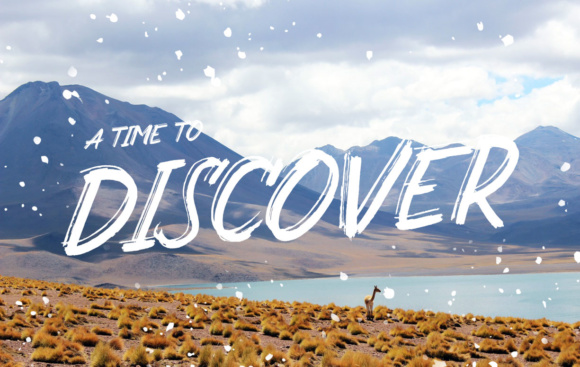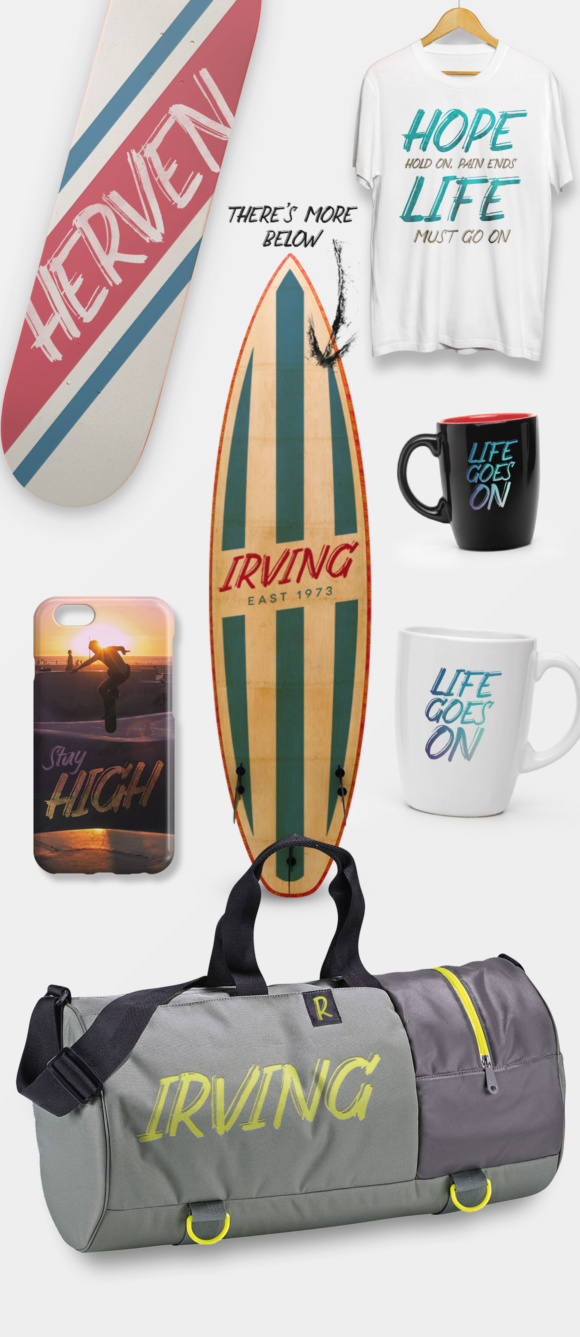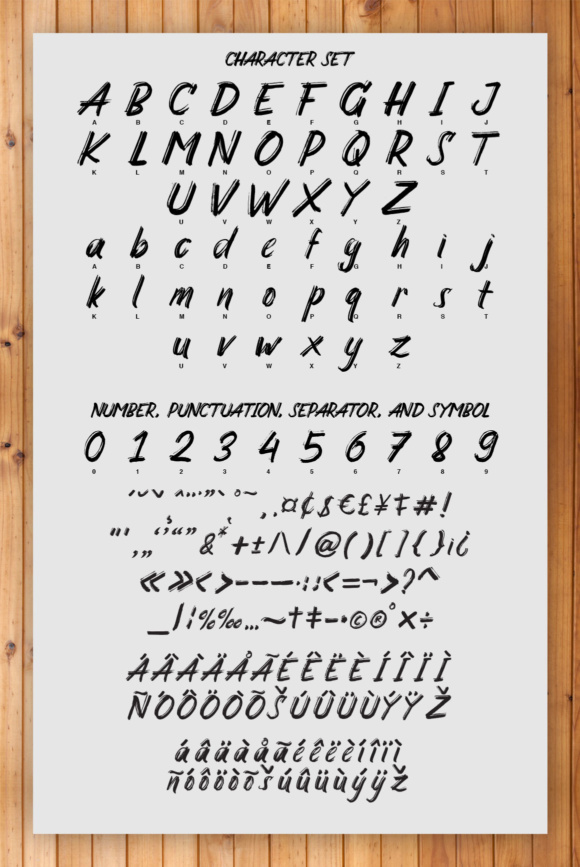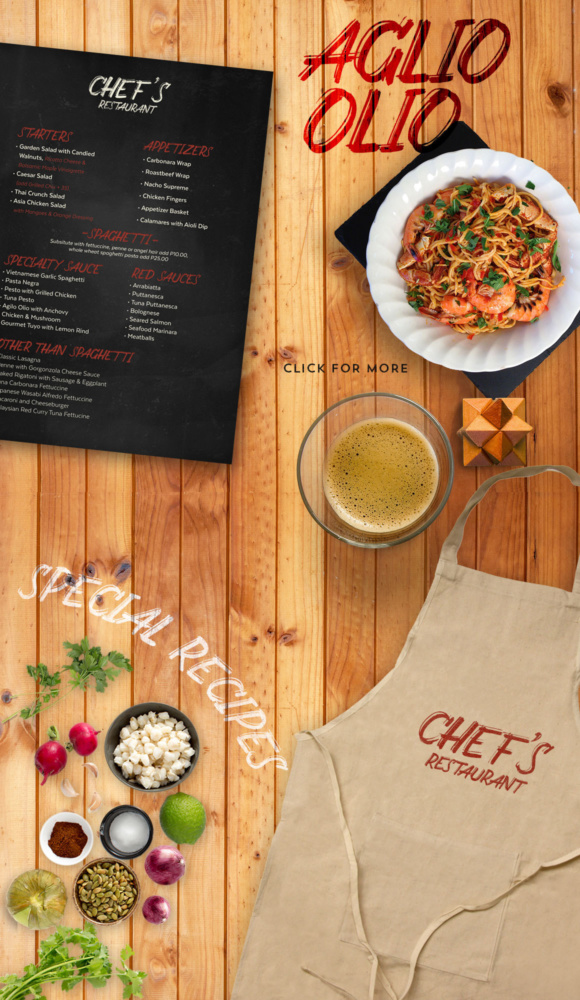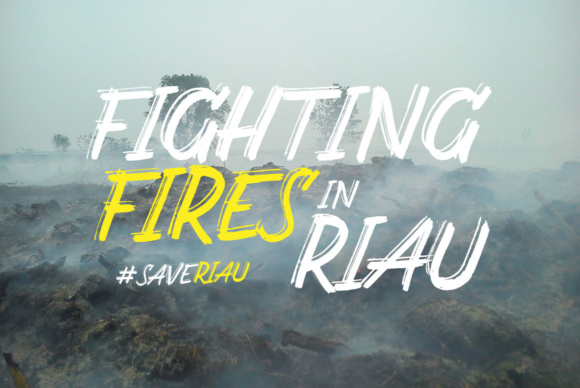
Discover the Unique Charm of Carbonera Font: A Story of Creativity and Sustainability
In the world of typography, fonts are often seen as mere tools for communication, but some stand out for their unique story, design, and the creative process behind them. Carbonera Font is one such typographic gem that not only catches the eye with its gritty, textured appearance but also tells a fascinating story of innovation and sustainability. This beautiful display font, crafted from the most unlikely of sources—cigarette filters—embodies a blend of grit and elegance that can add a distinctive touch to any design project.
The Origin Story of Carbonera Font
The story of Carbonera Font begins with a creative experiment. The designer, intrigued by the potential of everyday objects to be transformed into artistic elements, began using cigarette filters as the base material to craft unique strokes and shapes. This unconventional approach not only speaks to the ingenuity of the designer but also highlights a lesser-known aspect of sustainability in design. By repurposing discarded materials, Carbonera Font becomes a symbol of creative reuse and environmental consciousness.
Characteristics of Carbonera Font
Carbonera Font boasts a gritty look with a textured, authentic appeal that sets it apart from more traditional fonts. Its unique strokes, derived from the physical manipulation of cigarette filters, give the font a natural, almost organic feel. This texture can add depth and character to any project, making it particularly appealing for designers looking to infuse their work with a sense of realism and tactility.
- Unique Texture: The font’s texture, inspired by cigarette filters, provides a distinctive look that can enhance the visual appeal of any design.
- Gritty Appearance: Carbonera’s gritty aesthetic makes it perfect for projects that require a bold, statement-making font.
- Sustainable Design: The use of repurposed materials in its creation underscores a commitment to sustainability in design practices.
Applications of Carbonera Font
The versatility of Carbonera Font makes it suitable for a wide range of design projects. Whether you’re working on a branding campaign, a print project, or digital content, this font can add a unique flair that captures attention. Here are some ideal applications:
Ideal Uses:
- Branding and Logos: The distinctive texture and appearance of Carbonera Font can help create memorable brand identities.
- Poster Design: Its gritty, textured look makes it perfect for posters and flyers that need to stand out.
- Digital Media: Use Carbonera Font in social media graphics, website headers, and digital ads to add a touch of authenticity and grit.
Tips for Using Carbonera Font Effectively
To make the most of Carbonera Font, consider the following tips:
Effective Usage:
- Pair with Simpler Fonts: For readability, pair Carbonera Font with simpler fonts for body text.
- Experiment with Colors: Take advantage of the font’s textured nature by experimenting with different colors and gradients.
- Consider Size: Use Carbonera Font in larger sizes to maximize its impact, especially for headlines and titles.
| Font Name | Carbonera Font |
| Author | Adam Fathony |
Carbonera Font is more than just a typographic creation; it’s a statement piece that combines aesthetic appeal with a narrative of sustainability and creativity. Designers and crafters looking to imbue their projects with a unique character will find Carbonera Font to be an inspiring choice. Its gritty texture, authentic appeal, and the fascinating story behind its creation make it a valuable addition to any design toolkit.
Whether you’re drawn to its sustainable origins, its distinctive look, or the creative process that led to its development, Carbonera Font is sure to leave a lasting impression on both designers and their audiences. Embrace the unique charm of Carbonera Font and discover how this beautiful display font can elevate your design work.